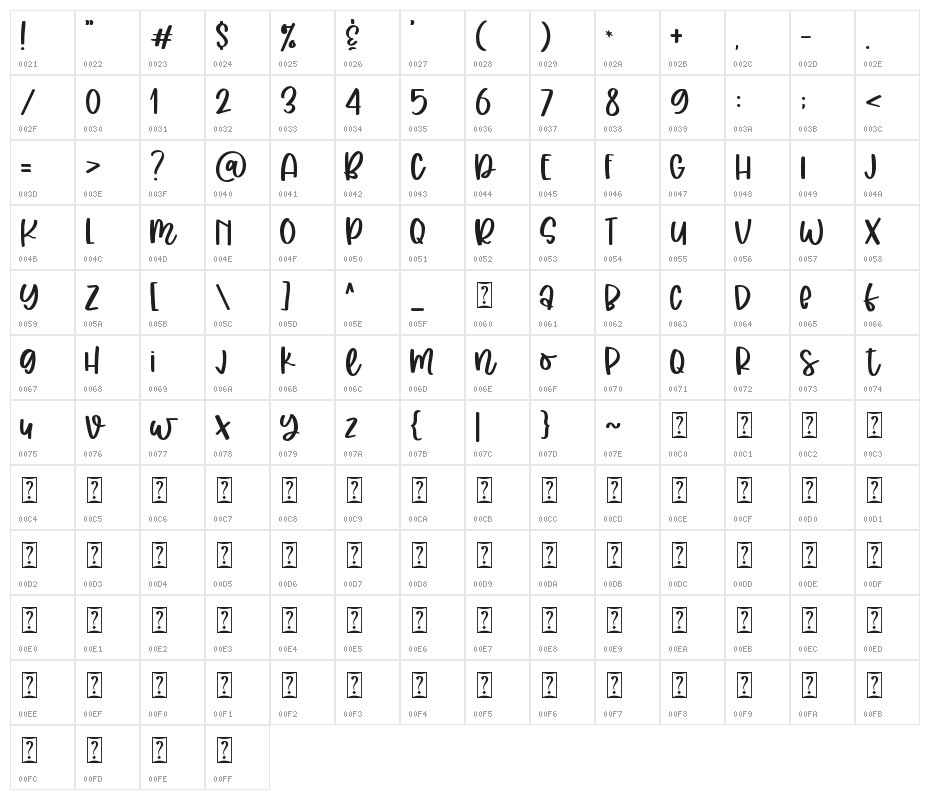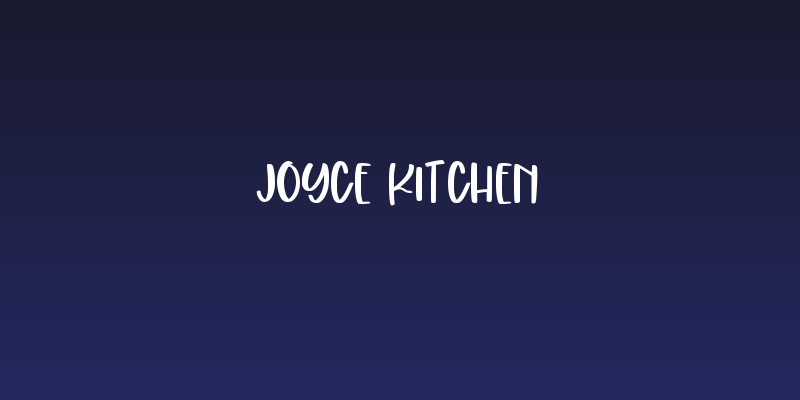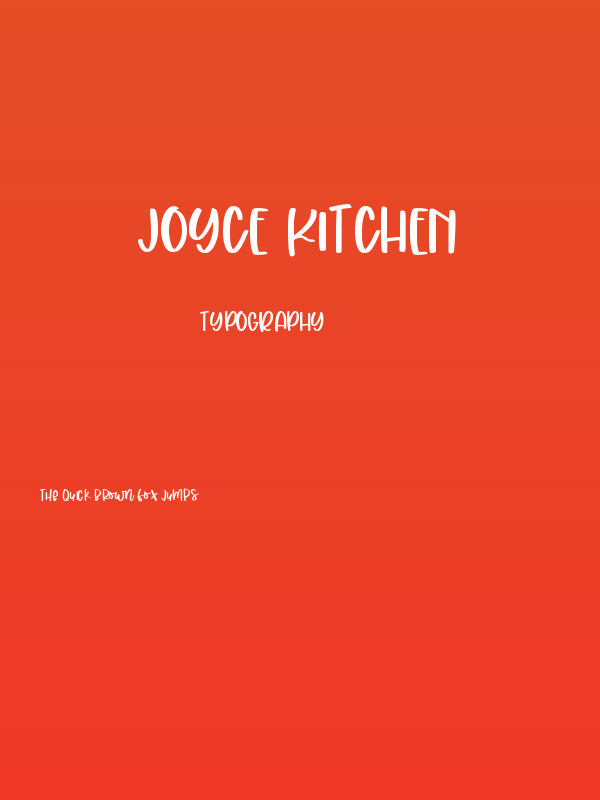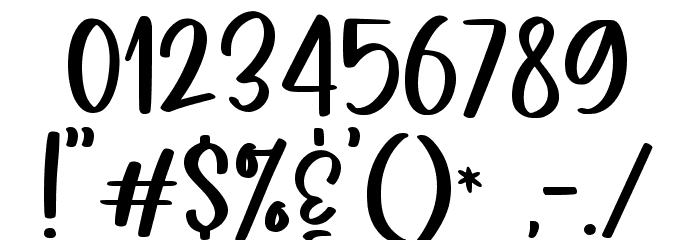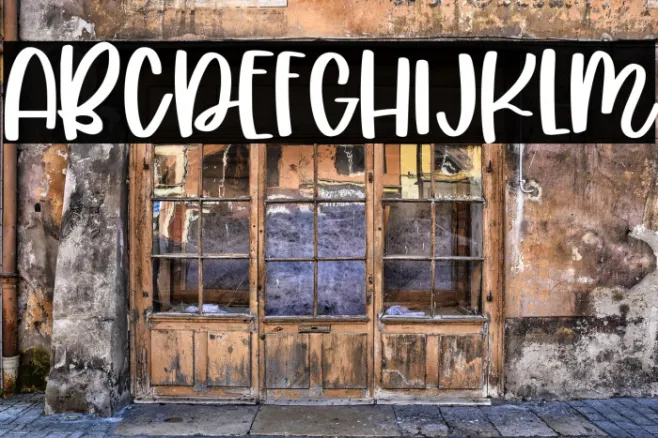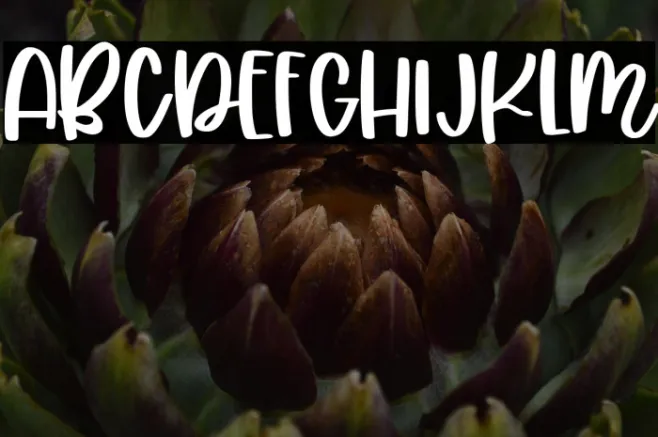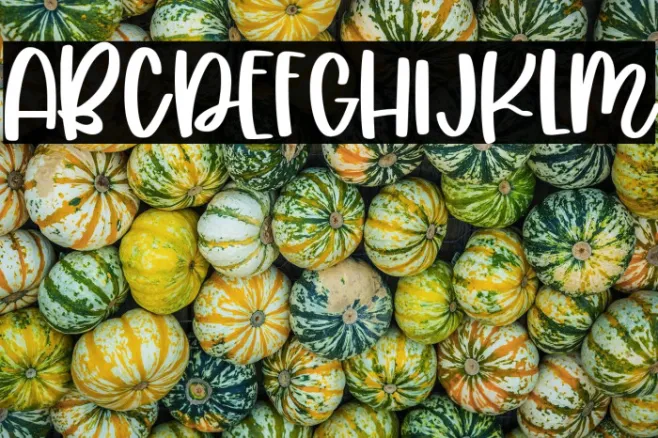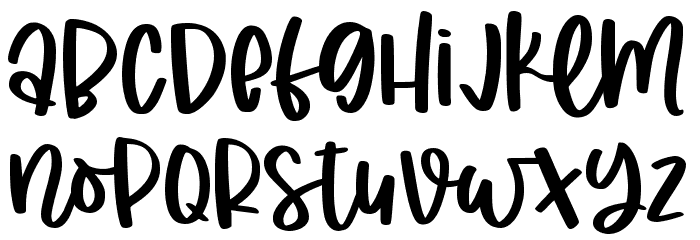
Joyce Kitchen Font
Joyce Kitchen Description
This font exudes a playful and energetic vibe with its bold, handwritten style. The characters are crafted with a smooth, flowing motion that gives a sense of movement and liveliness. Each letter is distinct, with rounded edges and a slight slant that adds to its casual and approachable feel. The uppercase and lowercase letters maintain a consistent style, ensuring readability while still offering a unique flair. Numbers and special characters are equally expressive, making them suitable for a variety of creative projects. The overall appearance is both modern and friendly, making it an excellent choice for designs that aim to convey warmth and personality.
| Overall Style | Modern, Playful |
| Proposed Projects | Ideal for greeting cards, social media graphics, children's book covers, and playful branding projects. |